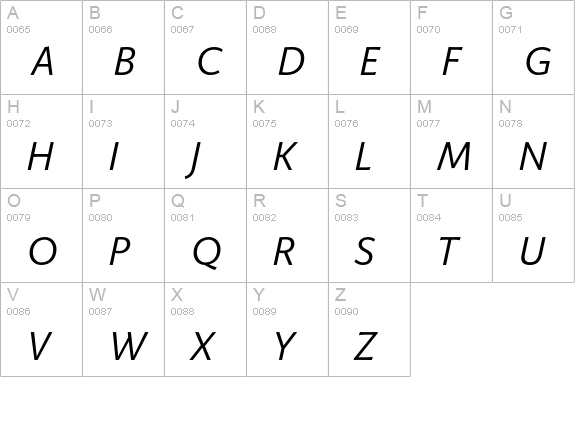
Giacomo Regular Italic is the standard, neutral, italic variant in the Giacomo typeface family \xE2\x80\x94 well suited to general body text, paragraphs, and standard typographic work.
Giacomo Regular Italic font exudes elegance and sophistication with its sleek design and stylish curves. This italic variation of the Giacomo typeface adds a touch of flair and finesse to any text it graces. The slanted letterforms create a sense of movement and modernity, making it a perfect choice for projects that require a contemporary and dynamic touch. What sets Giacomo Regular Italic font apart is not only its striking appearance but also the fact that it is available for free download at FontsMarket.com. This means that you can easily access this beautiful typeface without any cost, making it a valuable addition to your font library. Whether you're working on a branding project, editorial design, or any creative endeavor, Giacomo Regular Italic font is sure to elevate your work with its timeless charm and versatility. Download it today and let its elegant presence enhance your designs effortlessly.